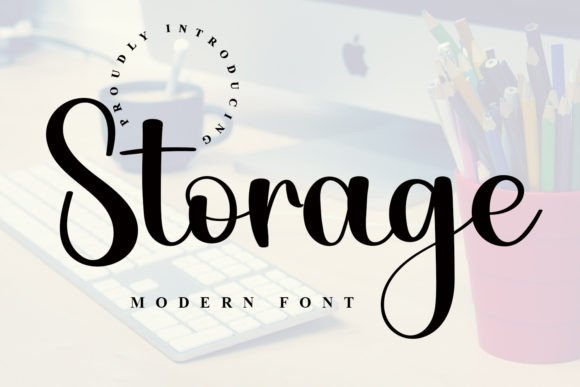
Step into the realm of elegance with Storage Font, a mesmerizing handwritten masterpiece curated by the brilliant mind of ABBAsalam. This script font is a captivating fusion of classic calligraphy and contemporary flair, effortlessly elevating your designs to new heights. Immerse yourself in the world of Storage Font, where beauty and functionality converge.
With its graceful strokes, Storage Font dances across your screen, creating a visual symphony that captivates and inspires. Its modern interpretation of traditional calligraphy lends a touch of timeless sophistication to any project, while its clean lines and crisp edges ensure optimal readability. Whether you're crafting logos, branding materials, invitations, or social media posts, Storage Font will add an irresistible charm that sets your work apart.
Discover the versatility of Storage Font as it seamlessly adapts to a wide range of design styles. Its inherent elegance shines through in formal settings, lending a touch of sophistication to wedding invitations, certificates, and official documents. Unleash your creativity in casual contexts, where Storage Font's playful charm adds a personal touch to greeting cards, flyers, and social media graphics. The possibilities are limitless, bound only by your imagination.
As a user, you hold the key to unlocking the true potential of Storage Font. Its user-friendly nature makes it accessible to designers of all skill levels, allowing you to effortlessly incorporate its beauty into your projects. Let Storage Font guide you toward design excellence, transforming your ideas into breathtaking realities.
Embark on a journey of visual enchantment with Storage Font. Its exquisite design will captivate your audience, leaving a lasting impression that lingers in their minds. Experience the joy of creating designs that resonate with your target audience, leaving them yearning for more.